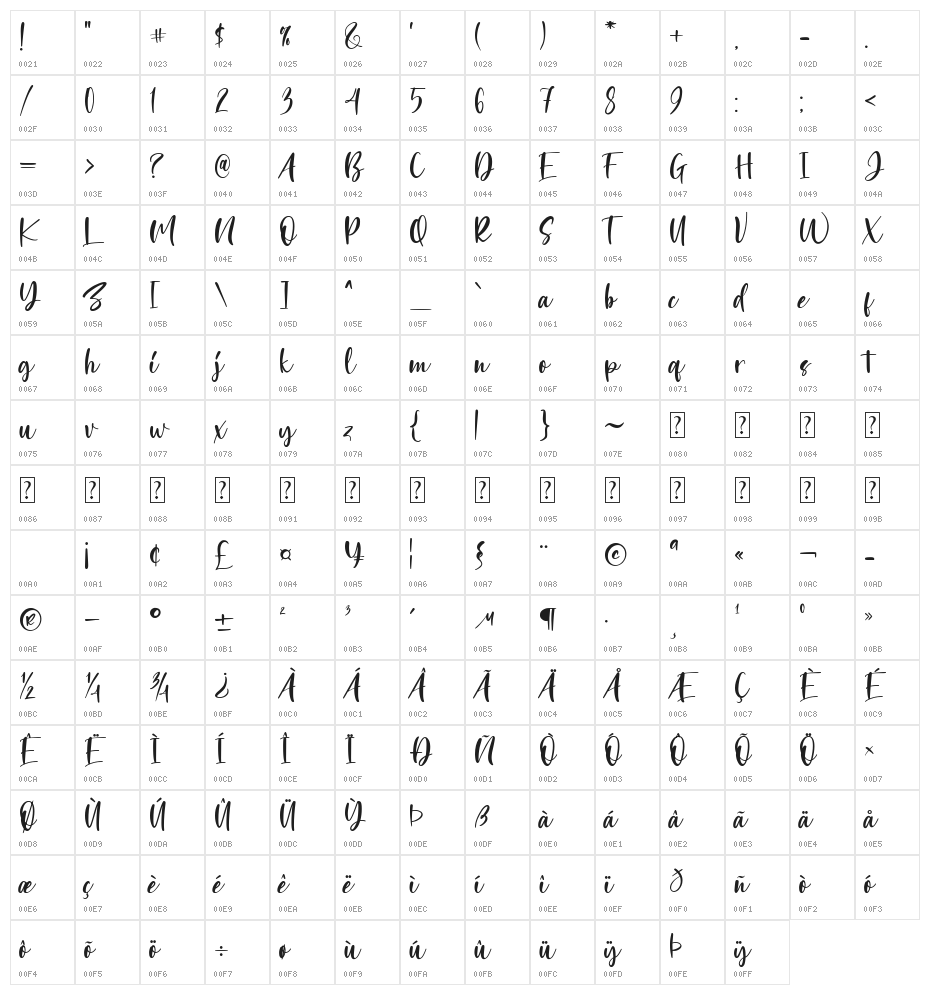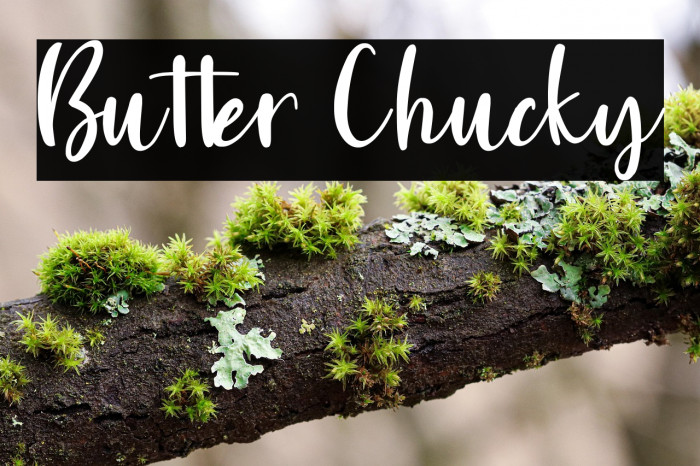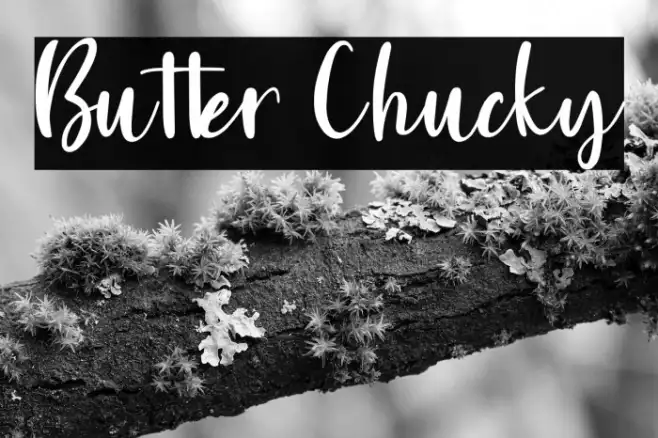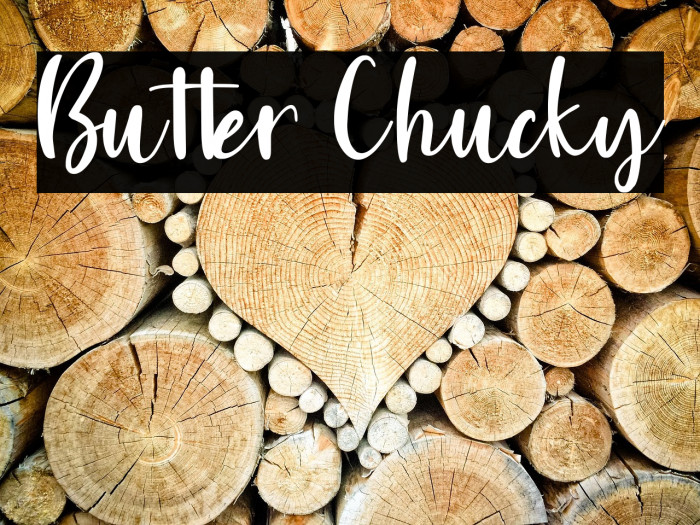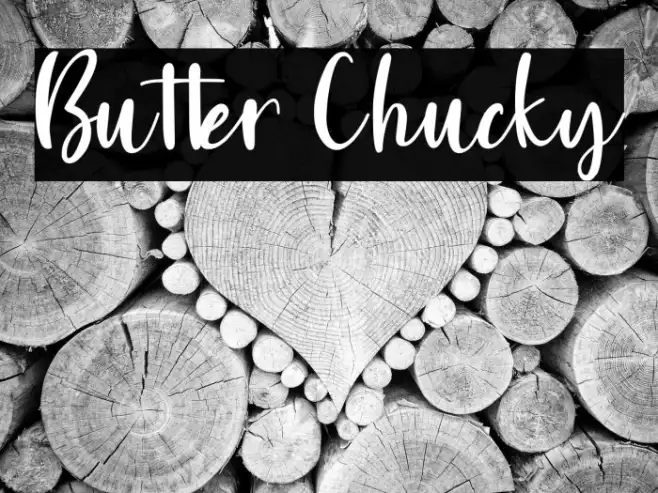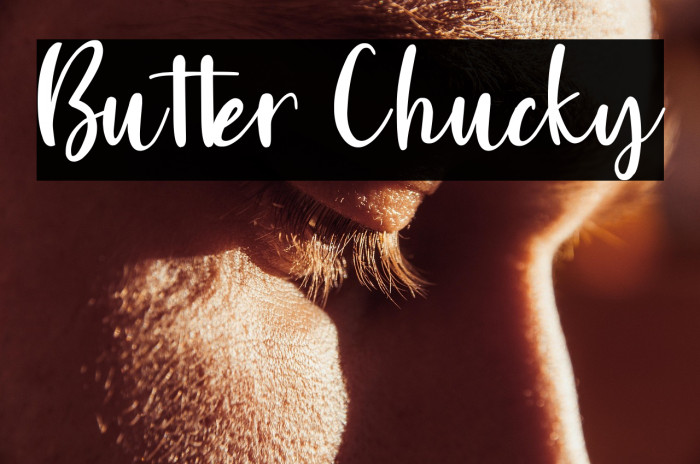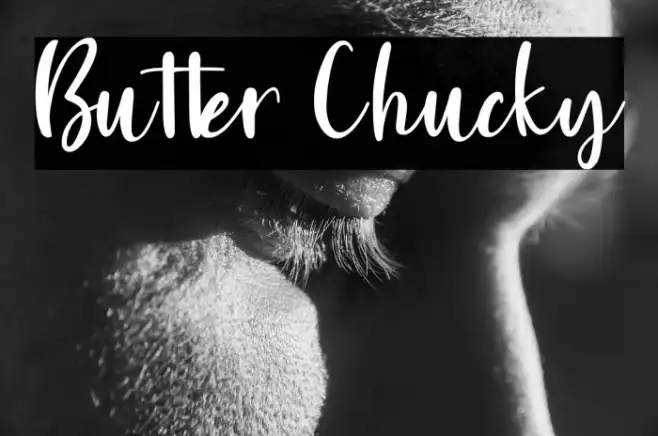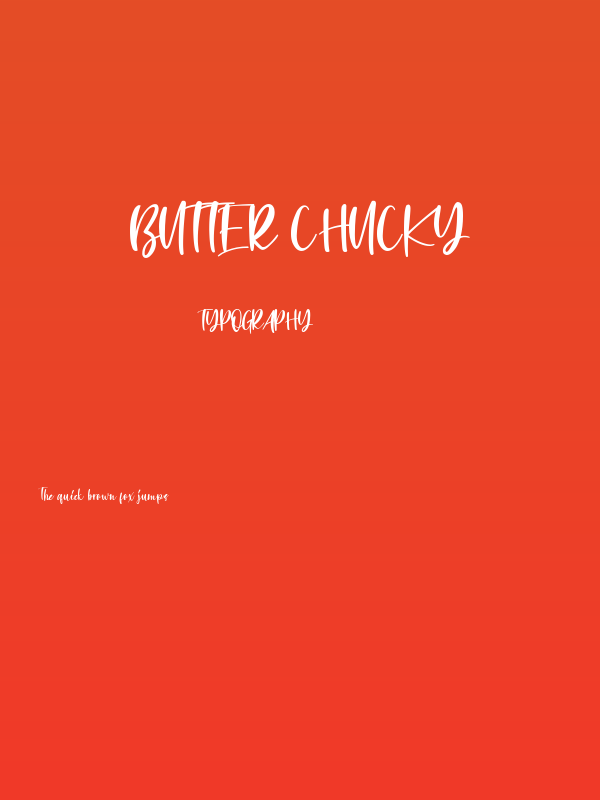
Butter Chucky Font
Butter Chucky Description
This font exudes a playful and energetic vibe with its bold, flowing script style. The characters are crafted with a sense of movement, featuring exaggerated loops and curves that give it a handwritten feel. The uppercase letters are particularly striking, with tall, sweeping lines that create a sense of elegance and flair. The lowercase letters maintain a consistent style, complementing the uppercase with their own unique charm. Numbers and special characters are equally expressive, maintaining the font's overall dynamic and lively appearance. This font is perfect for projects that require a personal touch, such as invitations, greeting cards, or branding materials that aim to convey creativity and warmth.
| Proposed Projects | Ideal for invitations, greeting cards, branding, and creative projects needing a personal touch. |